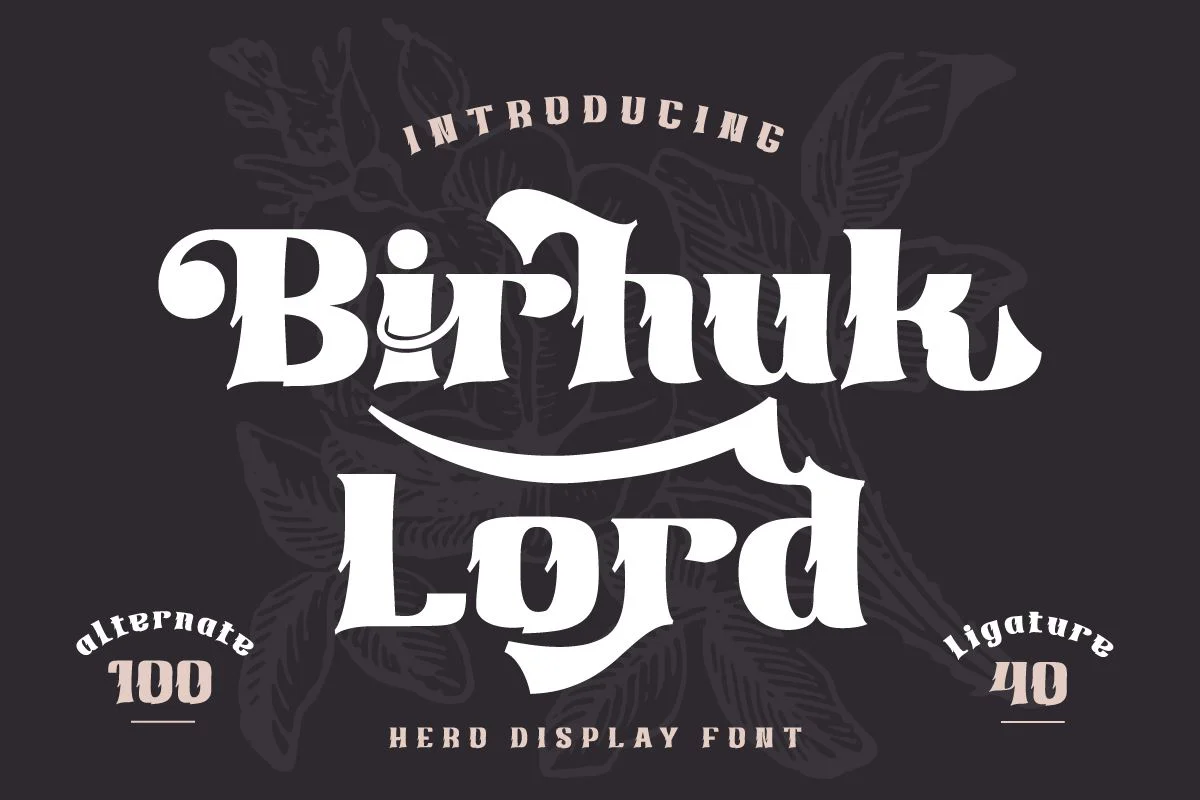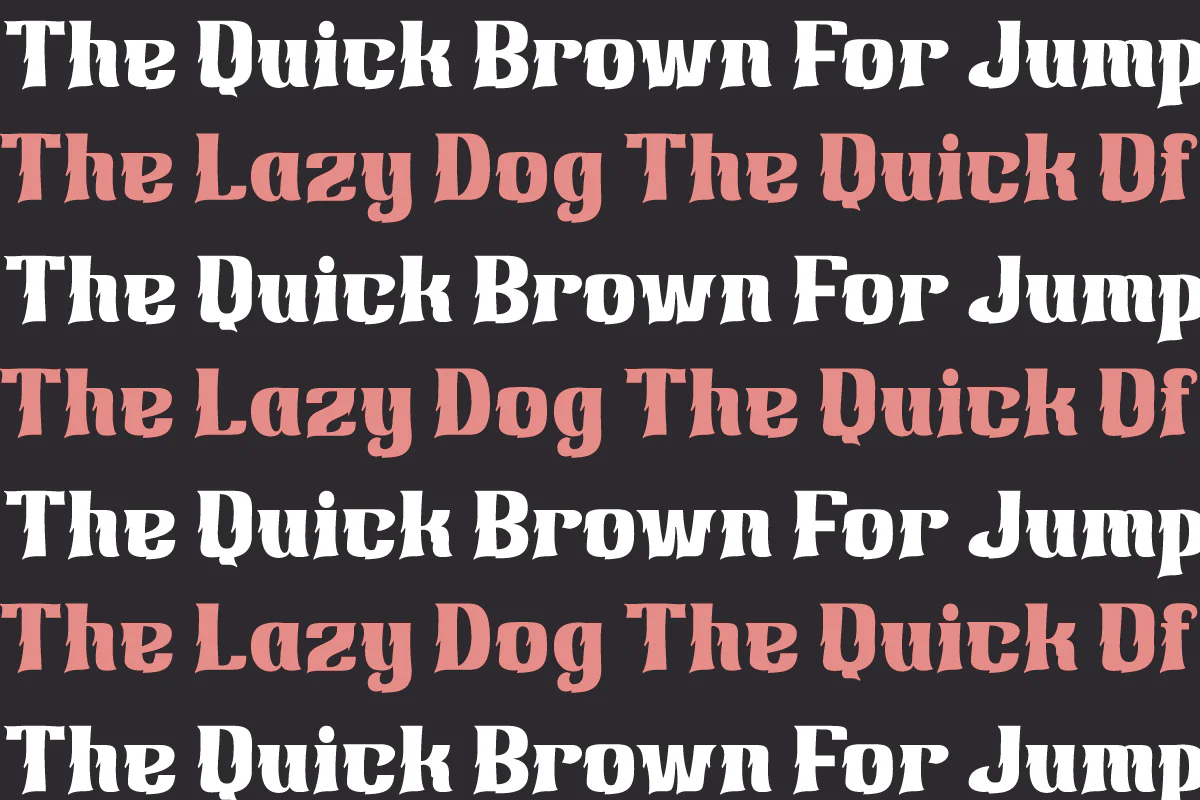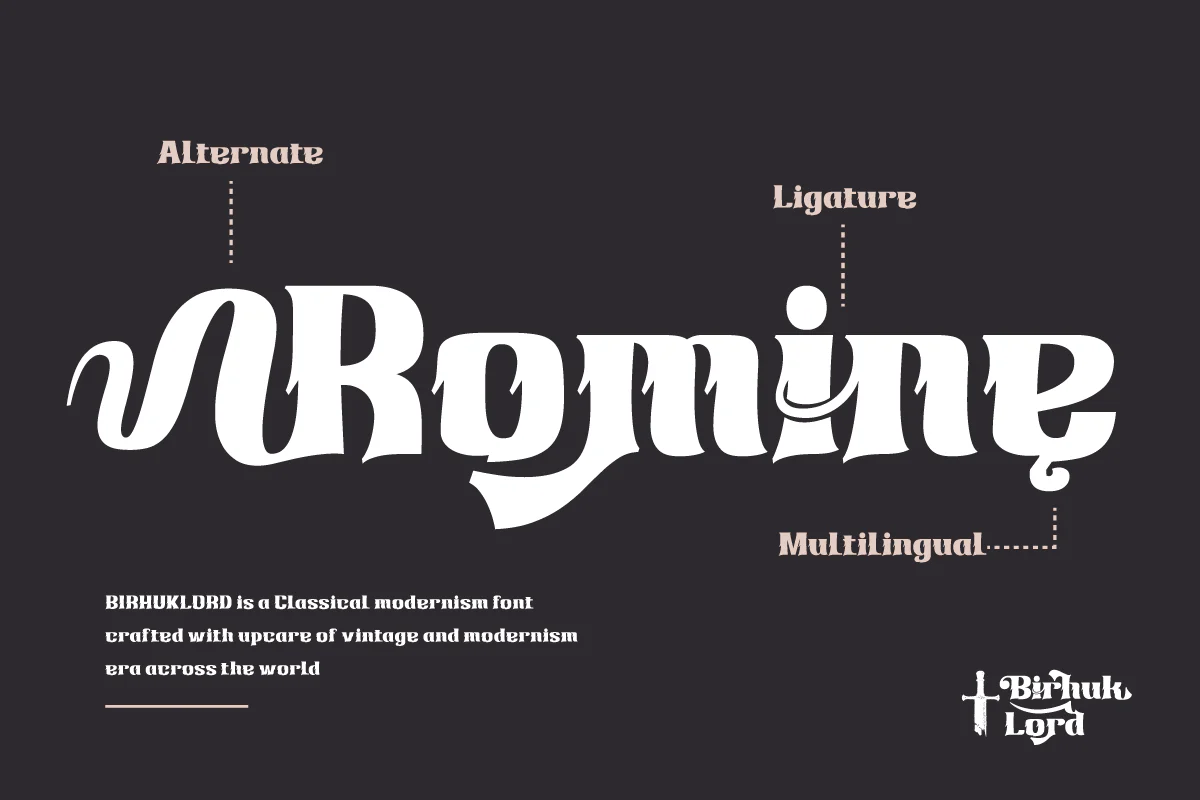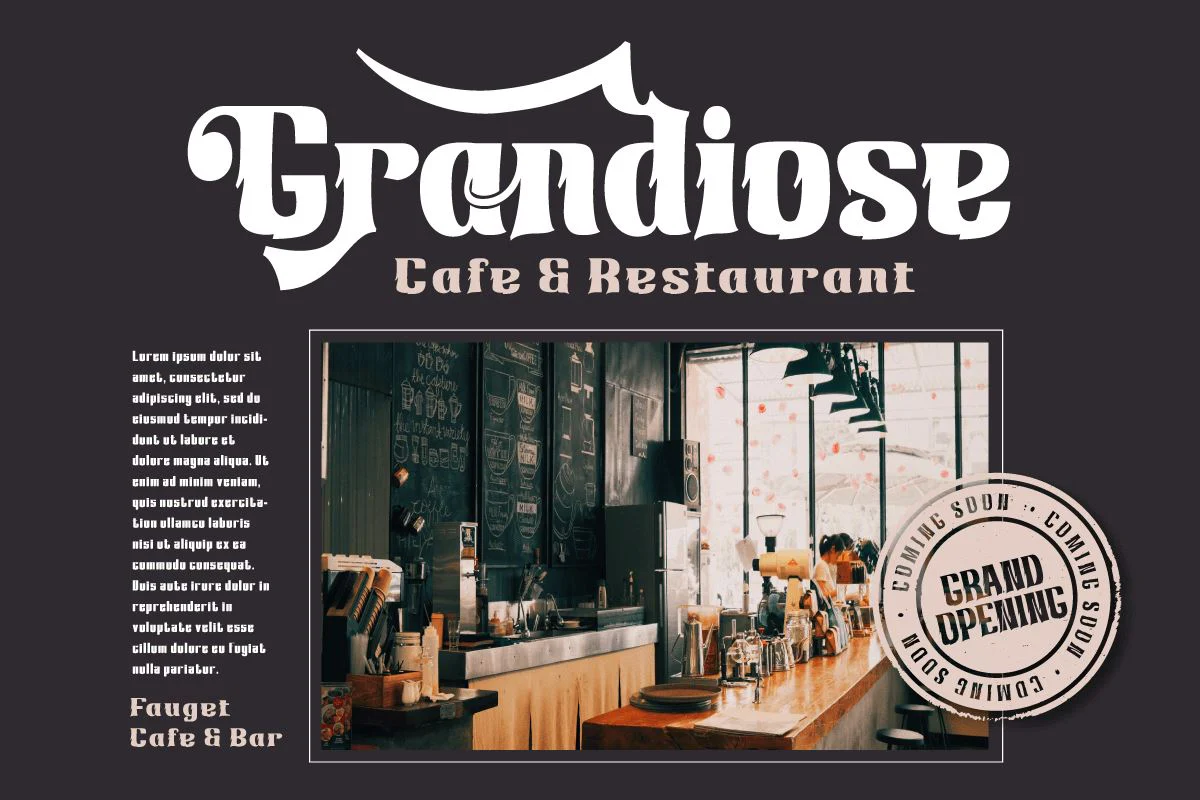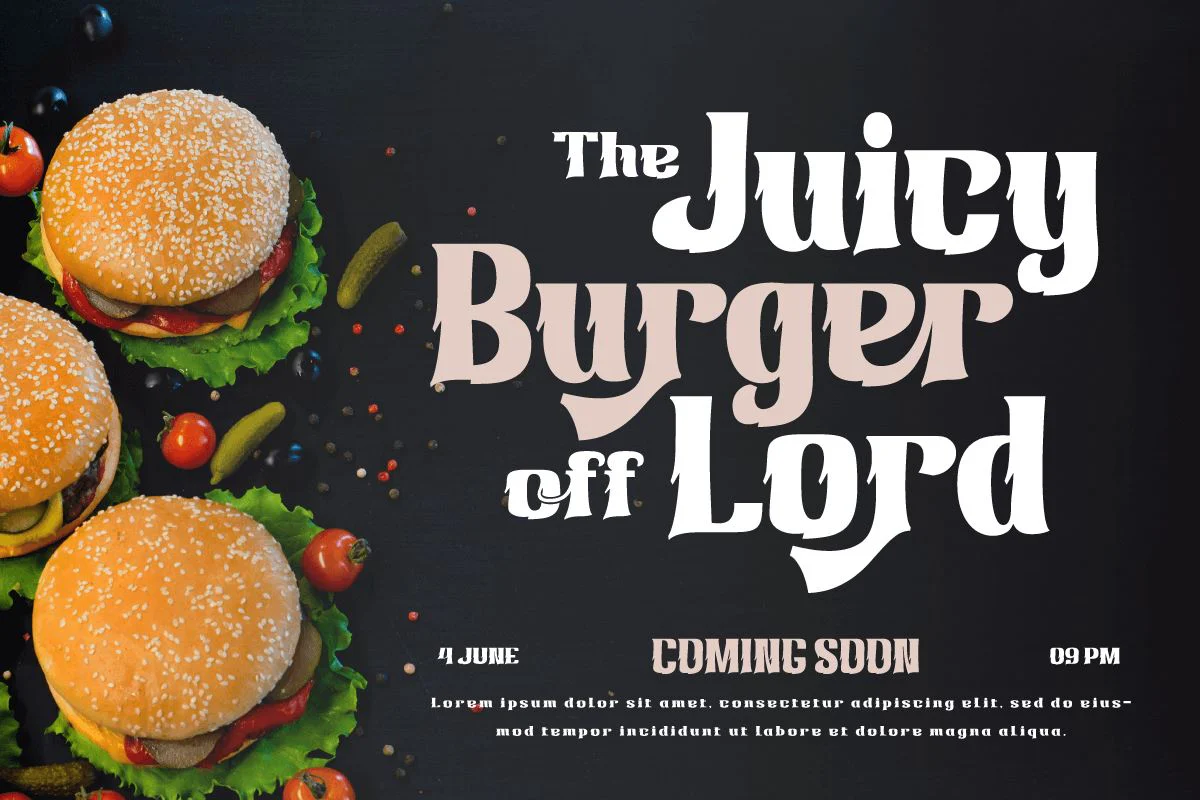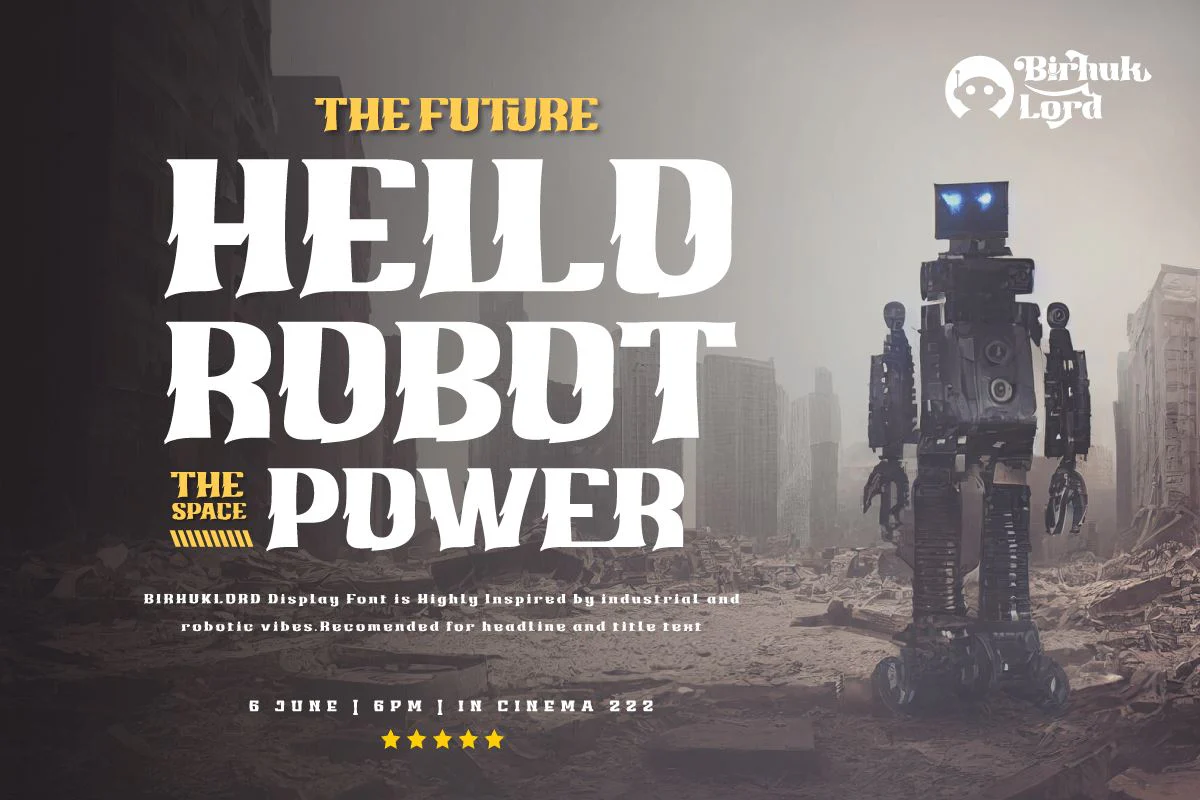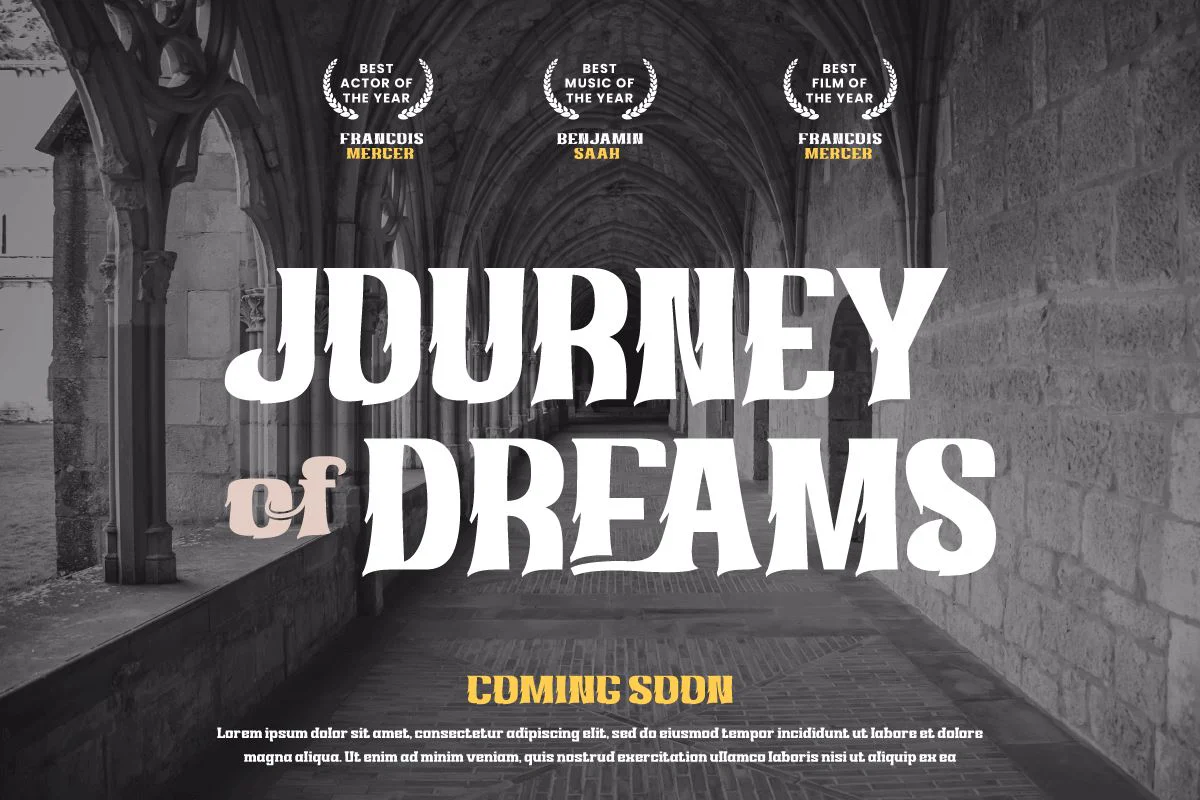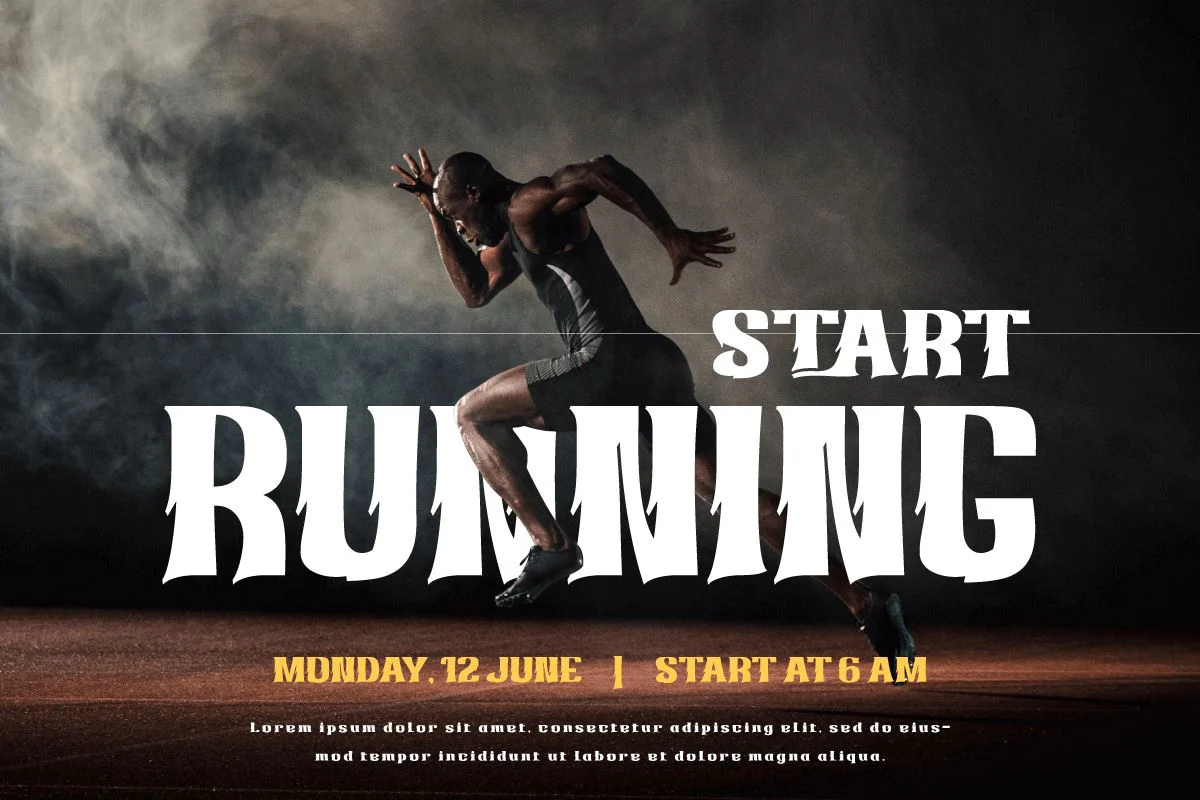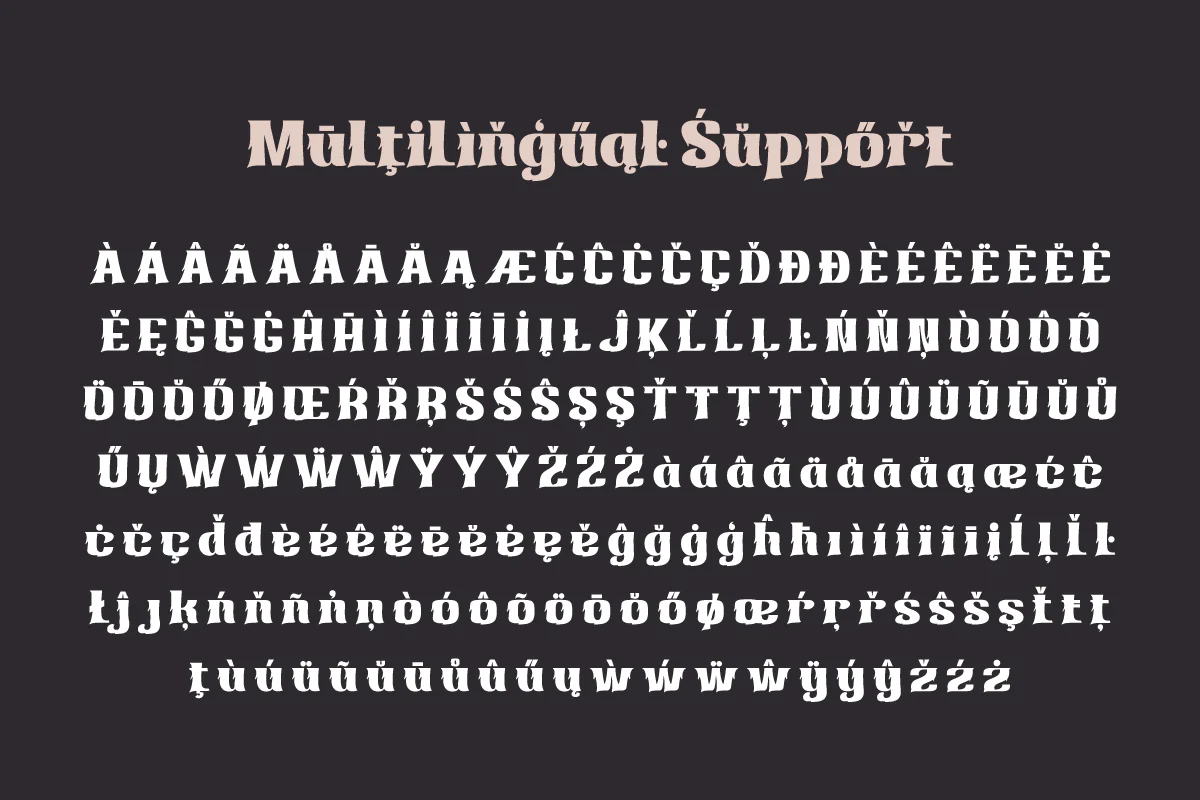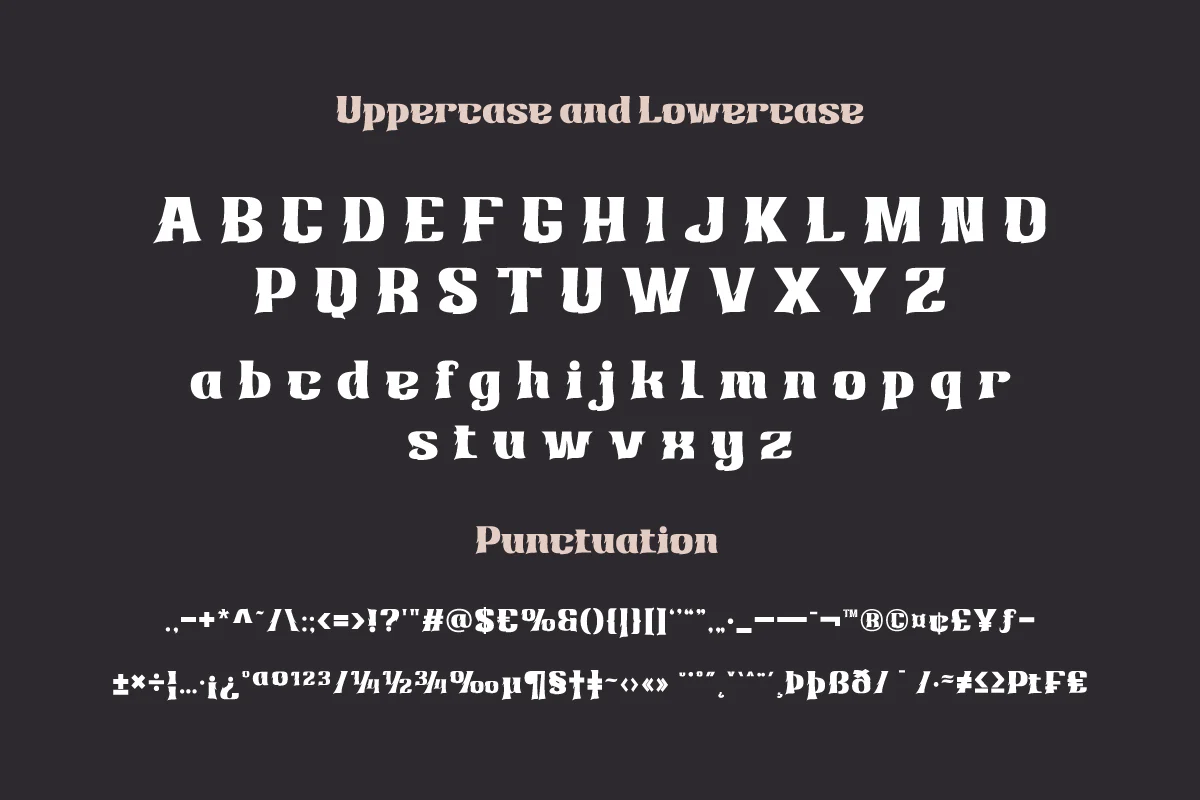
Birhuk Lord | Display Hero Font
Welcome to the world of courage with Birhuk Lord, a display font with a superhero style that is ready to add tension and strength to your projects. With strong, bold themes and bold looks, Birhuk Lord is the perfect solution for creating memorable messages in movies, games, and designs. In its electrifying light, Birhuk Lord conveys the feel of a superhero that captivates everyone. Each letter exudes courage and strength, taking your project to the next level and creating an extraordinary user experience.
In addition to a stunning style, Birhuk Lord is also equipped with excellent features that will enrich your creativity. With ligatures and alternative characters, you can combine typography in unique and interesting ways. Apart from that, this font also supports multiple languages, allowing you to reach an international audience with a strong and bold message.
With the presence of the Birhuk Lord, you will experience the magic at every touch. Get unforgettable courage, thrill, and strength with this font. Don’t waste the opportunity to have a Birhuk Lord and create extraordinary works that inspire and captivate each of your potential customers.